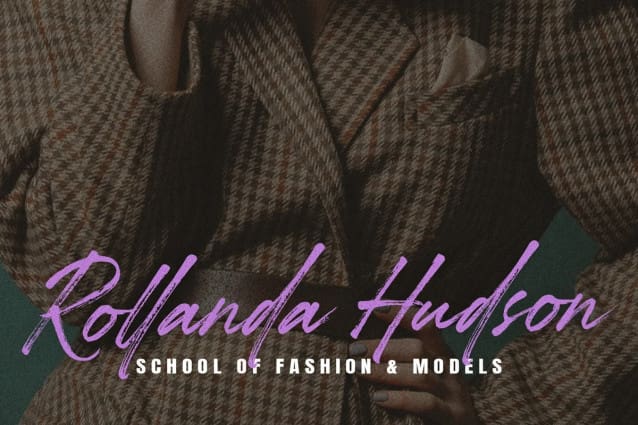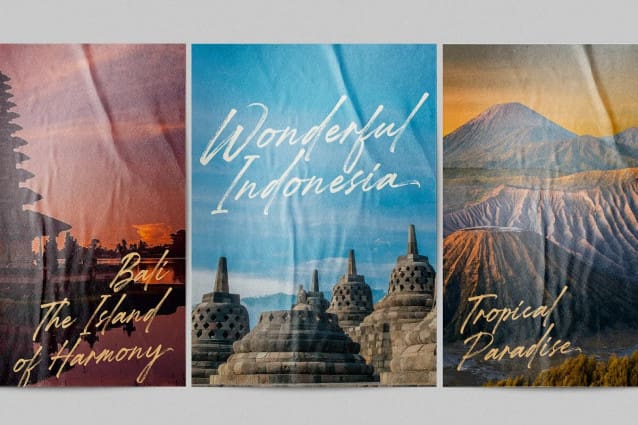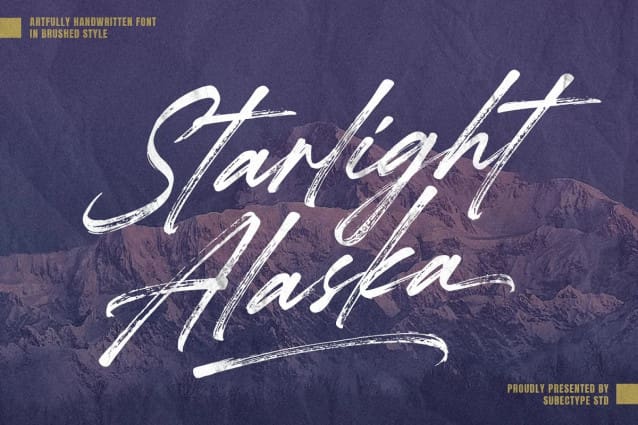
Starlight Alaska Font
Starlight Alaska Font is a handwritten brush script font. This font imparts a casual and natural appearance brush style. This font can convey a range of moods, from relaxed and friendly to artistic and eccentric. Making your message or artwork visually engaging and deeper in its impact. Starlight Alaska is ideal for logos, quotes, product packaging, or anything which needs a typographic turbo-boost.